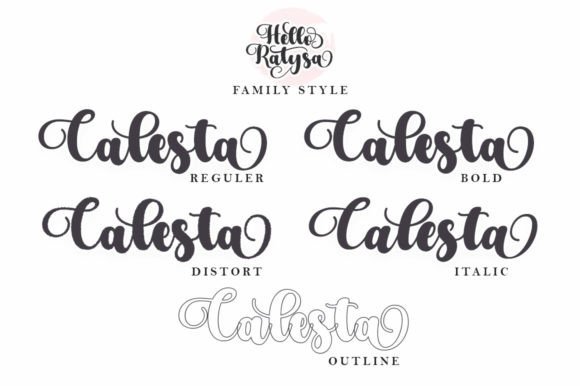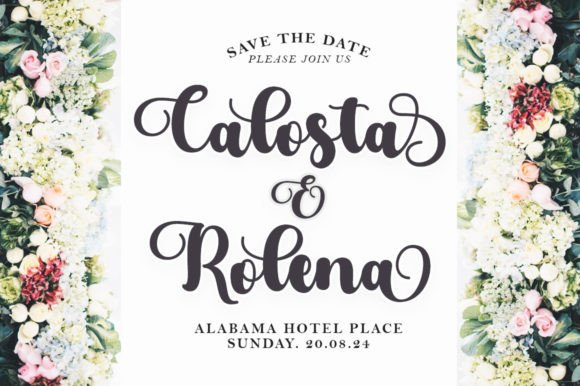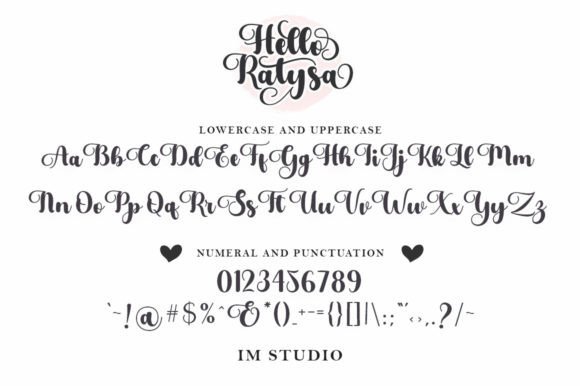
Introduction to Hello Ratysa Font
Hello Ratysa is a beautiful and refined handwritten script font.
Classy and modern, it is perfect for logos, branding, invitations, stationery, wedding designs, social media posts, and much more .
Key Features of Hello Ratysa Font